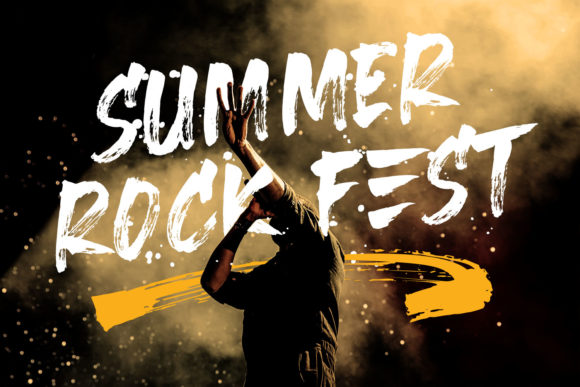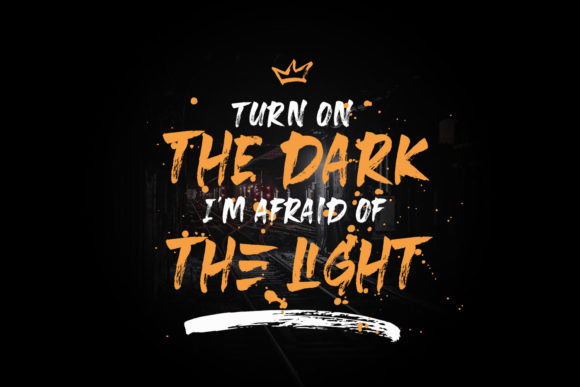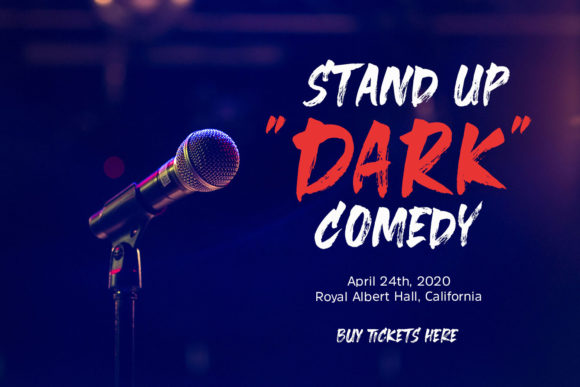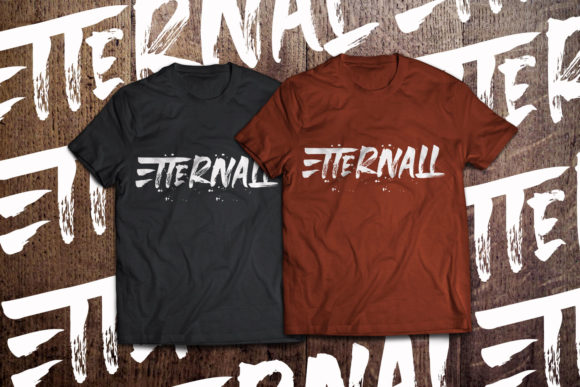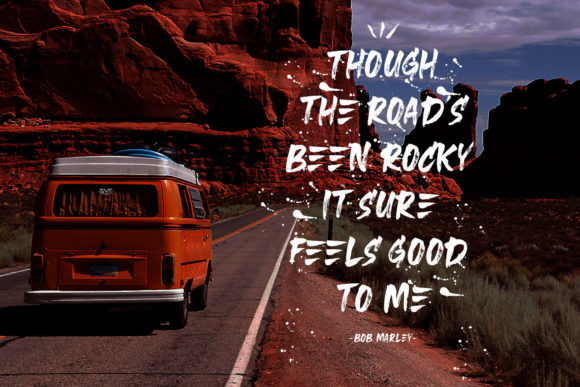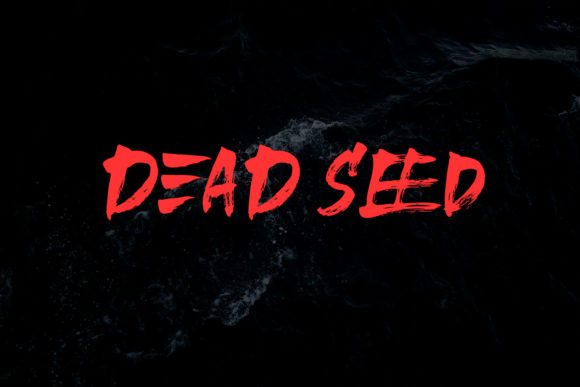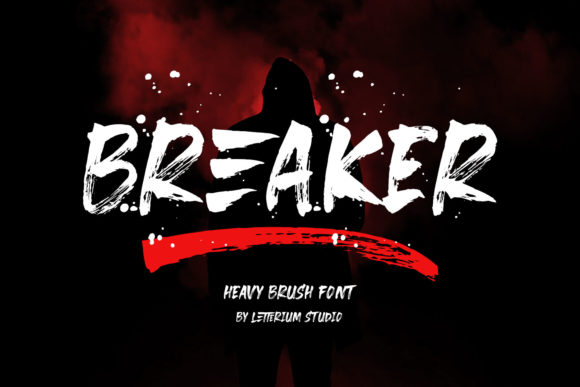
Unleash Your Creativity with Breaker Font: A Heavy Brush Font with Personality
Are you a designer or crafter looking for a font that can add a touch of personality to your projects? Look no further than Breaker Font, a heavy brush font that is sure to make a statement. With its bold and rugged texture, Breaker Font is perfect for creating eye-catching posters, t-shirts, pillows, bags, mugs, badges, headings, logos, invitations, and much more!
What is Breaker Font?
Breaker Font is a unique and versatile display font that is designed to add a touch of edginess to your designs. Its heavy brush strokes and deep texture give it a distinctive look that is sure to grab attention. Whether you’re creating a bold poster or a personalized gift, Breaker Font is the perfect choice.
Key Features of Breaker Font
- Heavy Brush Strokes: Breaker Font features heavy brush strokes that give it a bold and rugged texture.
- Deep Personality: This font has a unique personality that is sure to make your designs stand out.
- Versatile: Breaker Font can be used for a wide range of projects, from posters and t-shirts to logos and invitations.
- Easy to Read: Despite its bold texture, Breaker Font is easy to read, making it perfect for headlines and titles.
Uses for Breaker Font
Breaker Font is a versatile font that can be used for a wide range of projects, including:
- Posters: Create eye-catching posters for events, promotions, or advertising campaigns.
- T-Shirts and Apparel: Add a touch of personality to t-shirts, hoodies, and other apparel.
- Home Decor: Use Breaker Font to create personalized pillows, bags, and mugs.
- Logos and Branding: Create a bold and memorable logo for your business or brand.
- Invitations: Add a touch of elegance to your invitations and greeting cards.
Why Choose Breaker Font?
There are many fonts available that can add a touch of personality to your designs, but Breaker Font stands out from the rest. Here are just a few reasons why:
- Unique Texture: Breaker Font has a unique texture that is sure to grab attention.
- High-Quality: Breaker Font is a high-quality font that is designed to produce crisp and clear results.
Tips for Using Breaker Font
Here are a few tips for getting the most out of Breaker Font:
- Use it Boldly: Breaker Font is a bold font, so don’t be afraid to use it boldly. Experiment with different sizes and colors to create a statement piece.
- Pair it with Other Fonts: Breaker Font can be paired with other fonts to create a unique and interesting contrast. Try pairing it with a clean and simple font for a bold and modern look.
- Experiment with Colors: Breaker Font looks great in a wide range of colors, so don’t be afraid to experiment. Try using it in bright and bold colors for a fun and playful look.
| Font Name | Breaker Font |
Breaker Font is a heavy brush font with a very deep personality that is sure to add a touch of edginess to your designs. With its bold and rugged texture, it’s perfect for creating eye-catching posters, t-shirts, pillows, bags, mugs, badges, headings, logos, invitations, and much more! Whether you’re a designer or crafter, Breaker Font is a great choice for anyone looking to add a touch of personality to their projects.